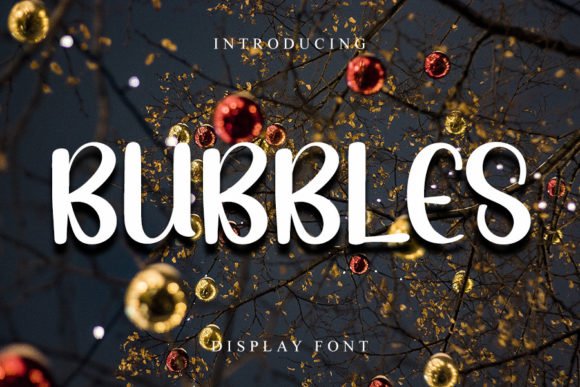
Creating Beautiful Designs with the Bubbles Font
As you sit at your desk, staring at a blank page, waiting for inspiration to strike, you feel a rush of excitement as a creative idea begins to form. It’s moments like these that remind you why you became a designer in the first place – to bring your vision to life and make it beautiful. And when it comes to giving your designs that extra touch of elegance, few fonts are as versatile and captivating as the Bubbles Font.
This stylish handwritten font has been crafted with love and attention to detail, drawing inspiration from the timeless classic calligraphy that has captivated artists and designers for centuries. With its balanced and varied style, the Bubbles Font is the perfect addition to any project, from elegant invitations to modern advertising campaigns.
Whether you’re a seasoned designer or just starting out, the Bubbles Font is an invaluable asset to your creative toolkit, offering endless possibilities for enhancing the beauty and sophistication of your work.
Bubbles Font Key Features
- Font Style: Bubbles Font is a unique, handwritten font with a playful and whimsical feel.
- Unique Characteristics: Each letter in the font has a unique, hand-drawn feel with subtle imperfections, giving it a charming and organic look.
Bubbles Font Review
I recently had the chance to work with the Bubbles Font, and I must say it’s a fun and playful addition to any design project. ✨ The font’s bubbly texture and rounded edges give it a whimsical feel that’s perfect for kid-friendly brands, party invitations, or any design that needs a touch of nostalgia.
One of the things I love about Bubbles Font is its versatility. ✨ It comes in a range of weights, from light to bold, making it easy to use in a variety of contexts. The font also has a nice balance of legibility and style, making it easy to read even at smaller sizes.
While the Bubbles Font is a great choice for many projects, there are a few limitations to keep in mind. ⚠️ For one, the font may not be suitable for more formal or professional designs, as its playful feel may come across as unprofessional. Additionally, the font’s texture and rounded edges can make it difficult to use in situations where a clean, modern look is desired.
Overall, I think the Bubbles Font is a great choice for designers who want to add a touch of whimsy and fun to their projects. While it may not be suitable for every design context, it’s a great option for brands and projects that need a playful, kid-friendly feel.
- Fun and playful texture
- Available in a range of weights
- Good balance of legibility and style
- May not be suitable for formal or professional designs
- Texture and rounded edges may not be suitable for modern designs
Tips for Getting the Most Out of Bubbles Font
Here are some tips to help you get the most out of the Bubbles Font:
- Use the Bubbles Font in combination with other playful fonts to create a fun and eye-catching design.
- Experiment with different font sizes and styles to add visual interest to your design.
- Use the Bubbles Font in headings and titles to create a bold and attention-grabbing effect.
Common Use Cases for Bubbles Font
The Bubbles Font is commonly used in:
- Food and beverage branding and marketing materials.
- Playful and whimsical advertisements and social media graphics.
Alternatives to Bubbles Font for Designers
1. Comic Sans MS
Comic Sans MS is a fun, casual font often used for informal or playful designs. It’s ideal for children’s books, advertising, or social media graphics. When to use: Friendly, approachable tone.